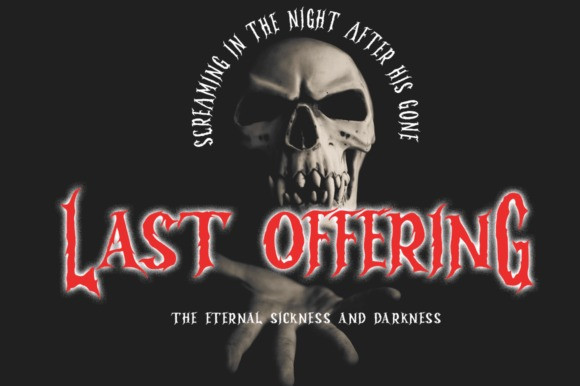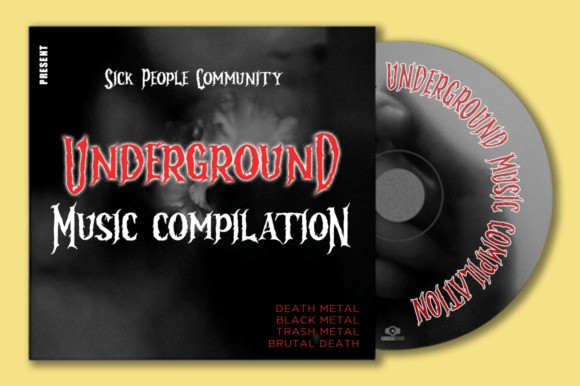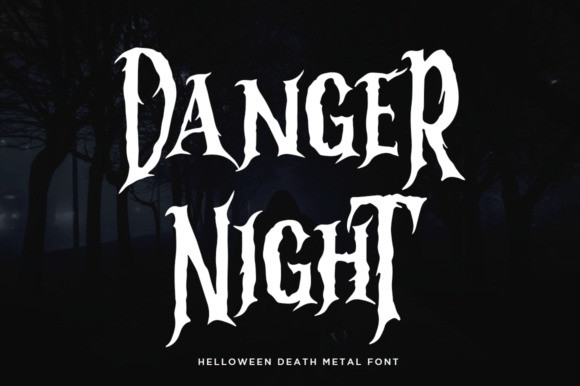
Danger Night Font
Danger Night Display Font. Are you one of those people who own a band or is a fan of loud music? This cool blackletter font is here to improve the appearance or branding of your design. This font is perfect for posters, merchandise, album covers, logos, and more.